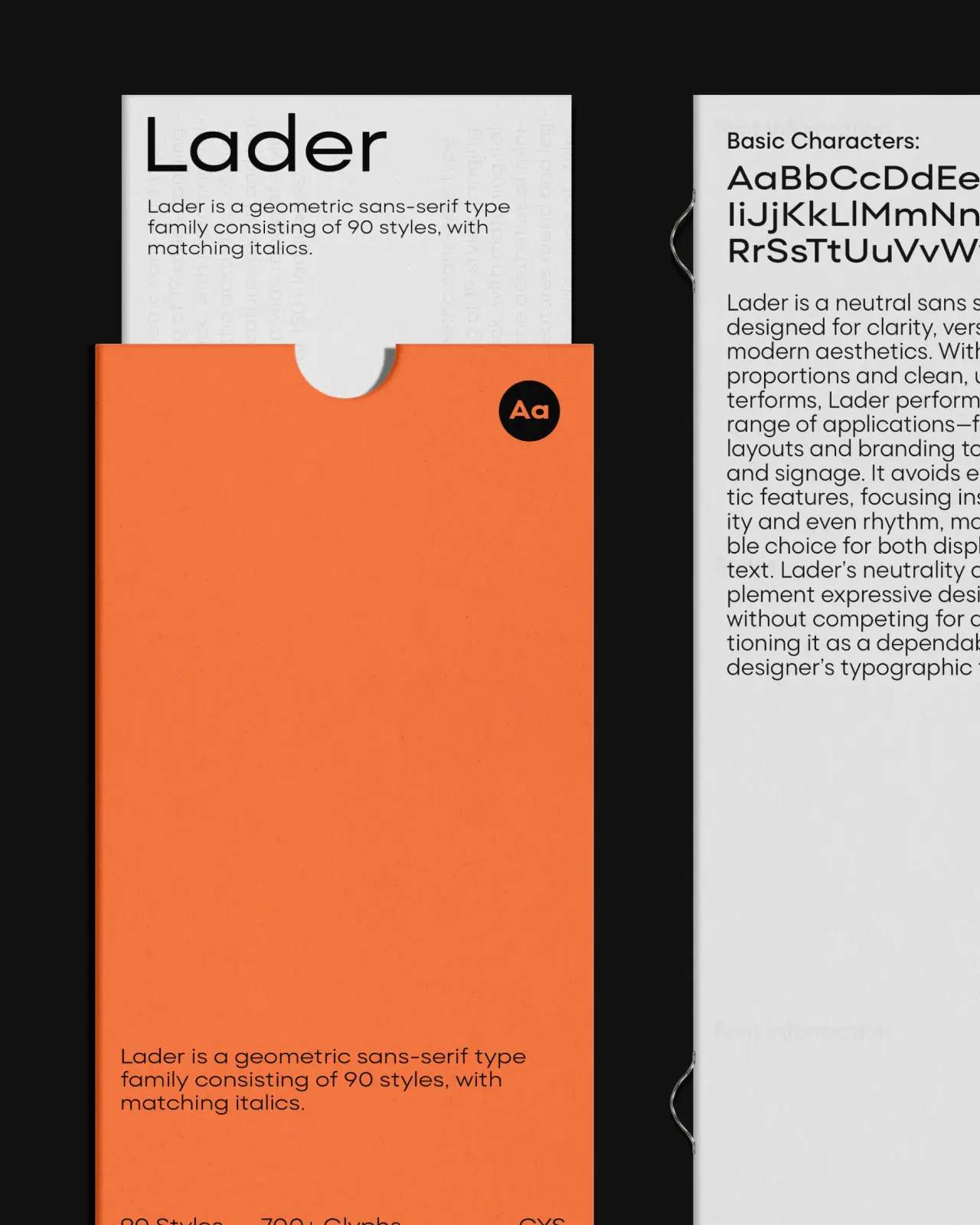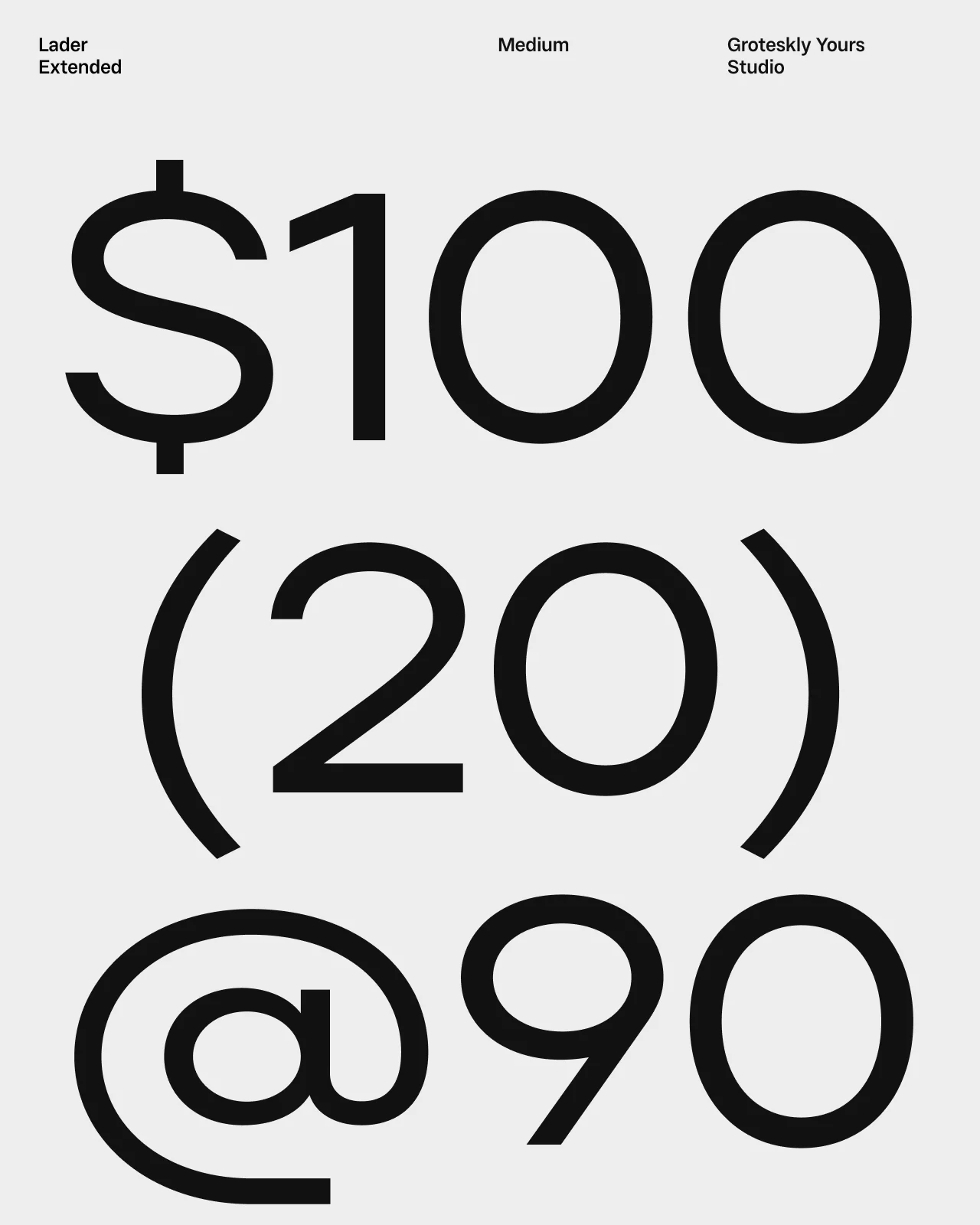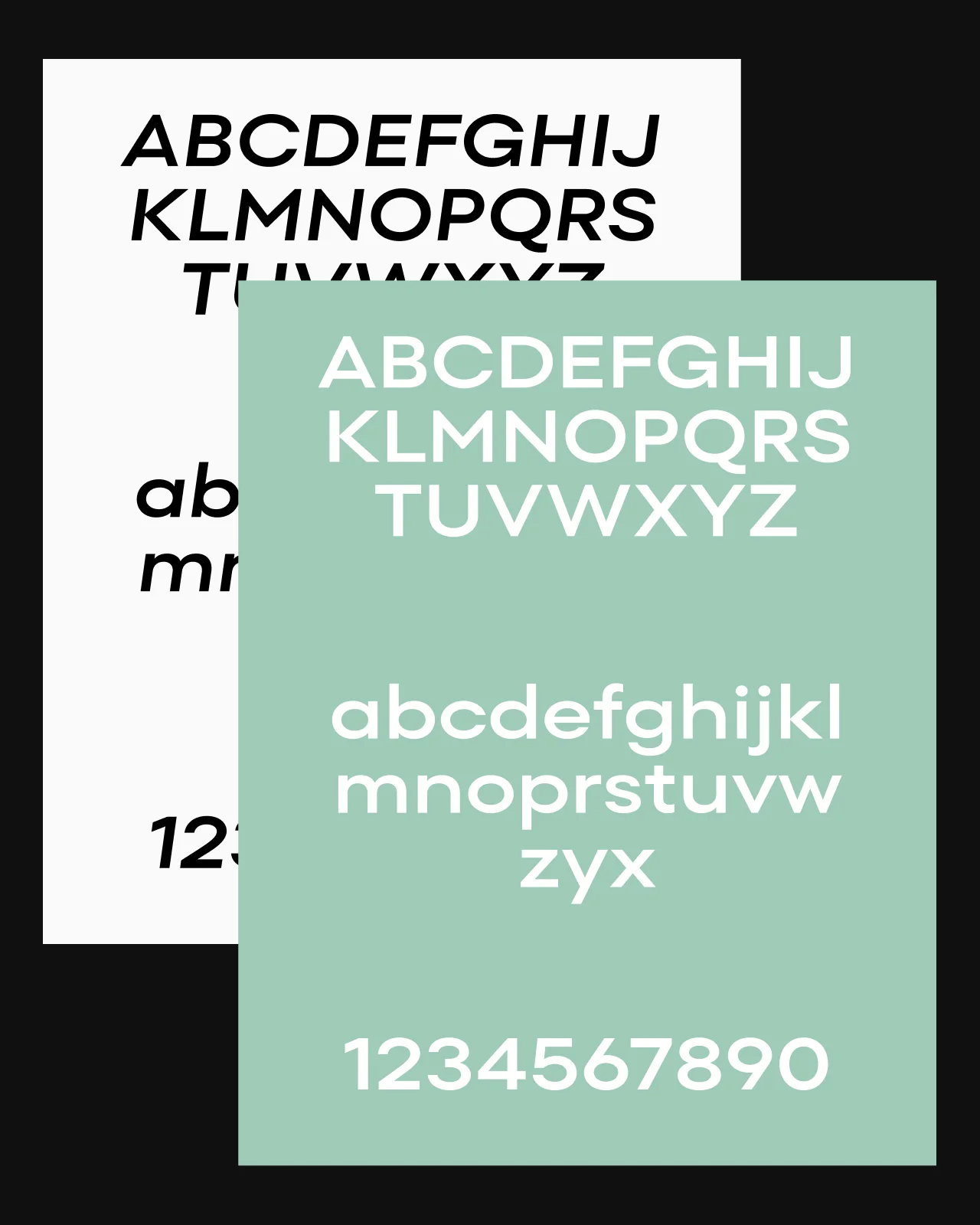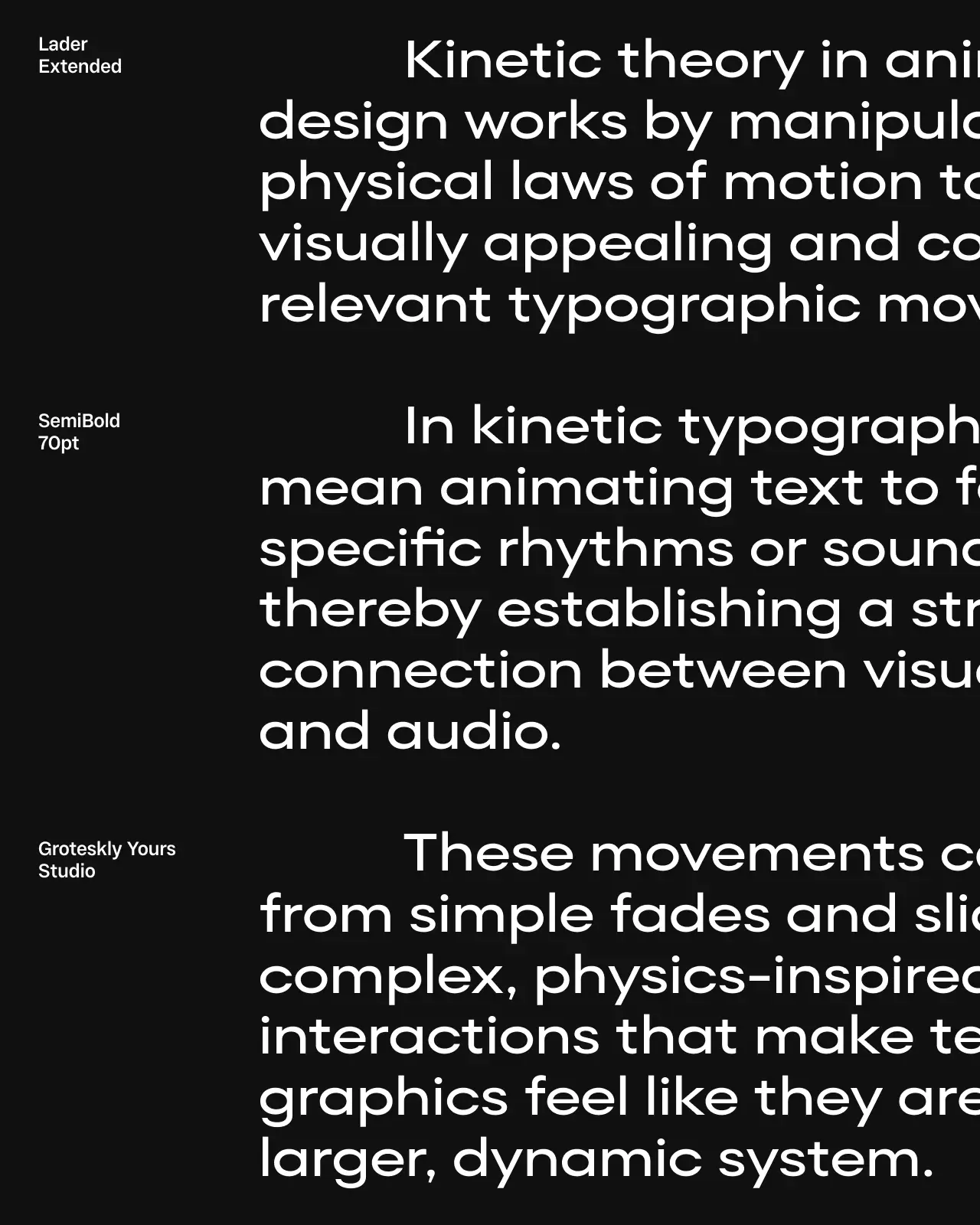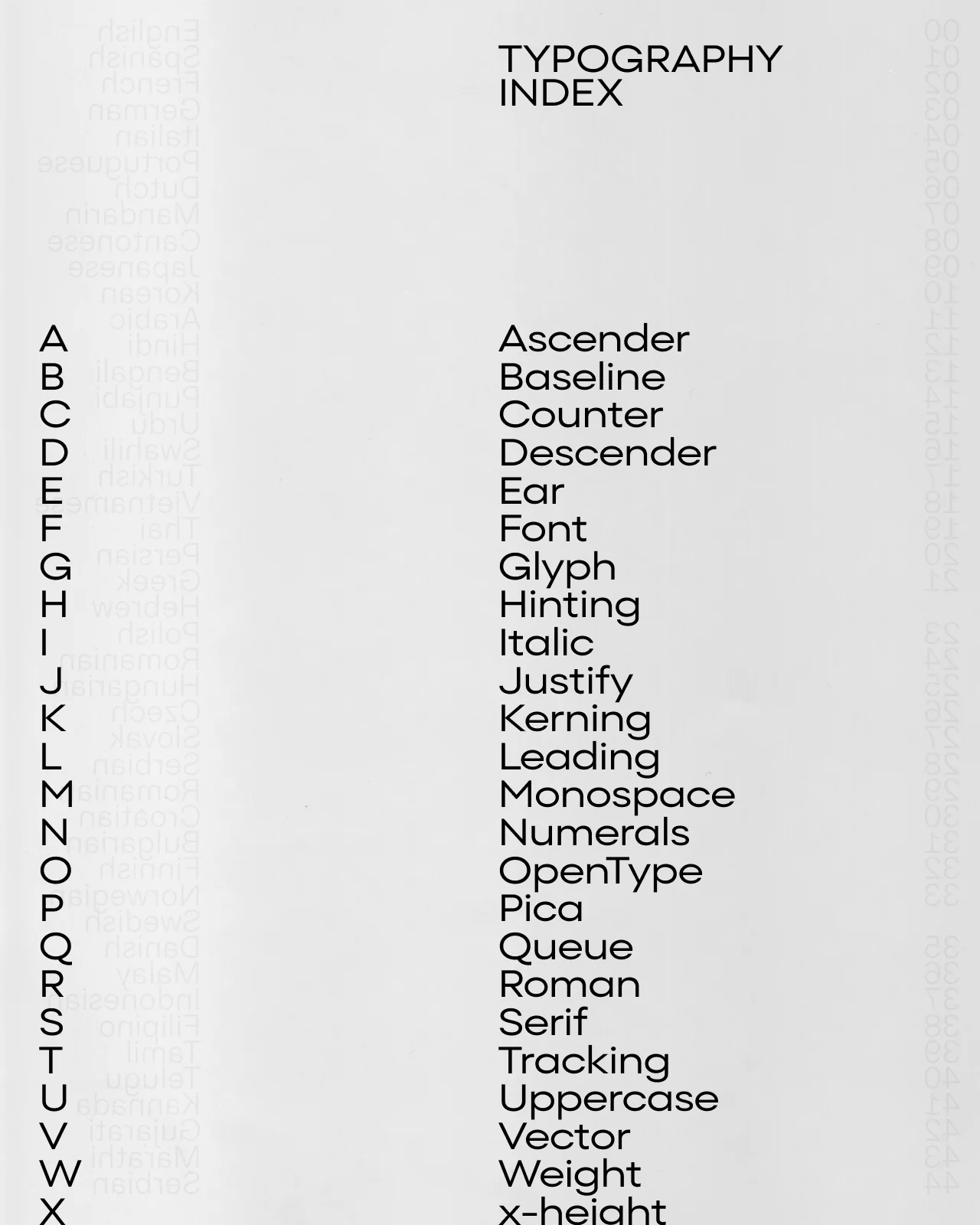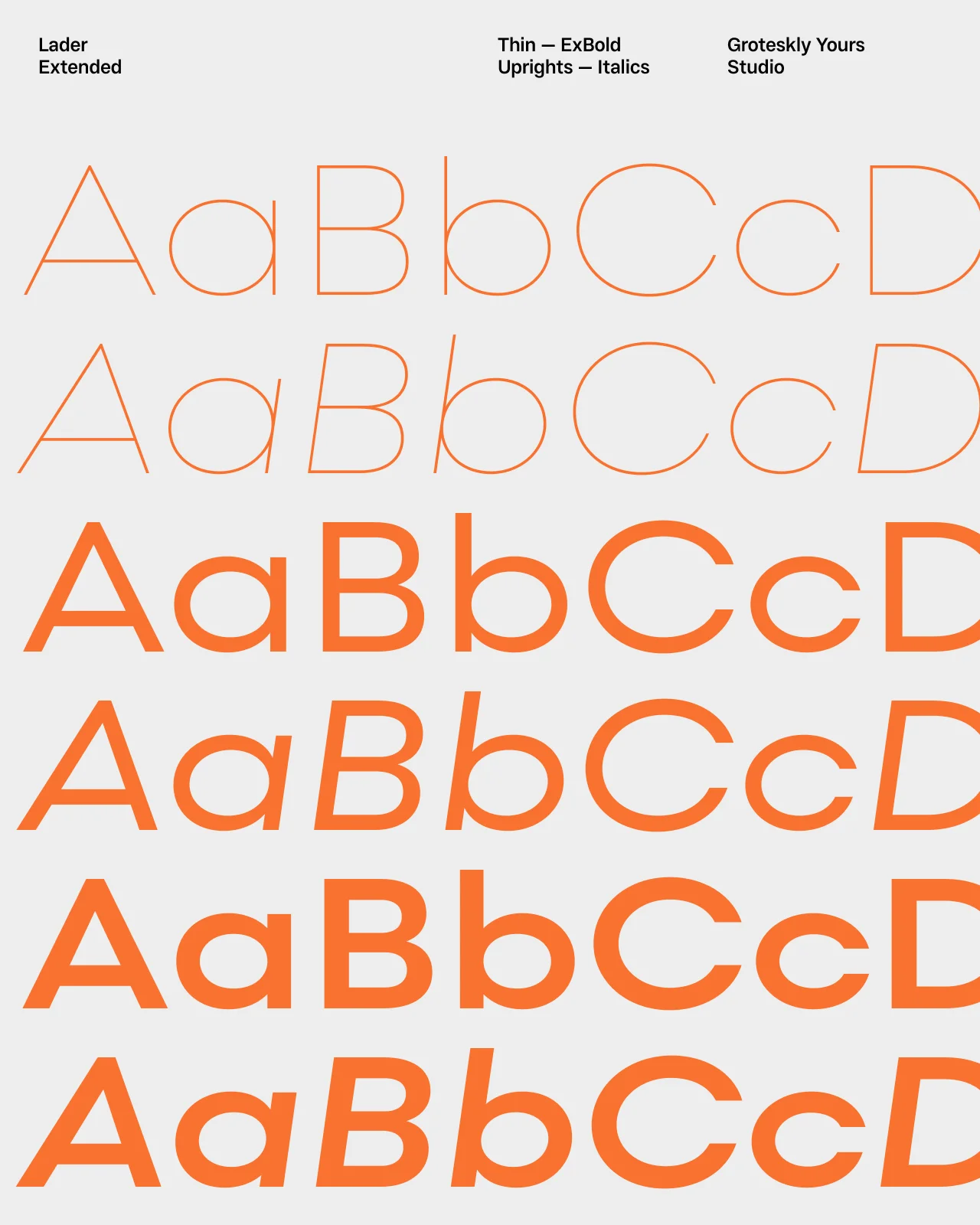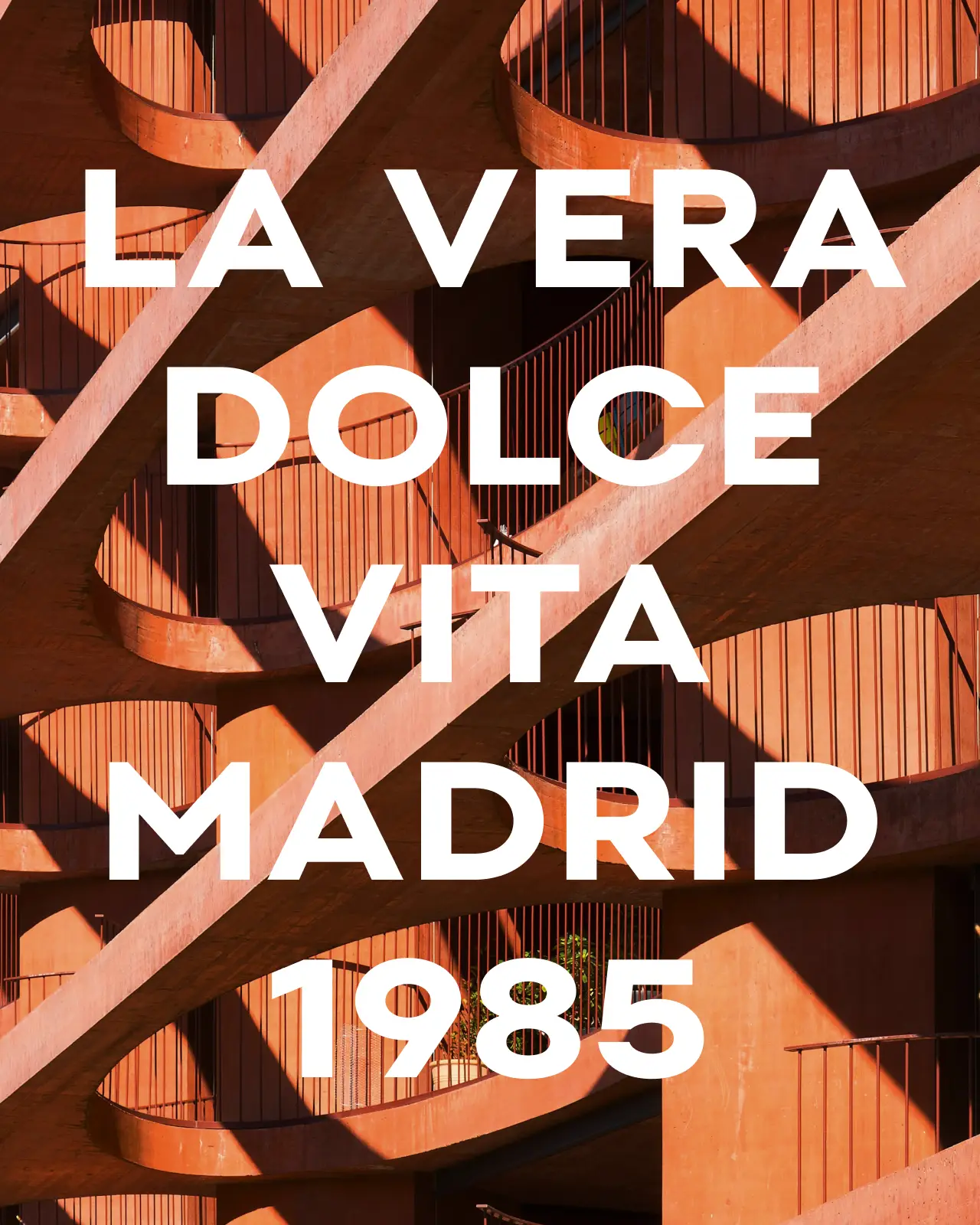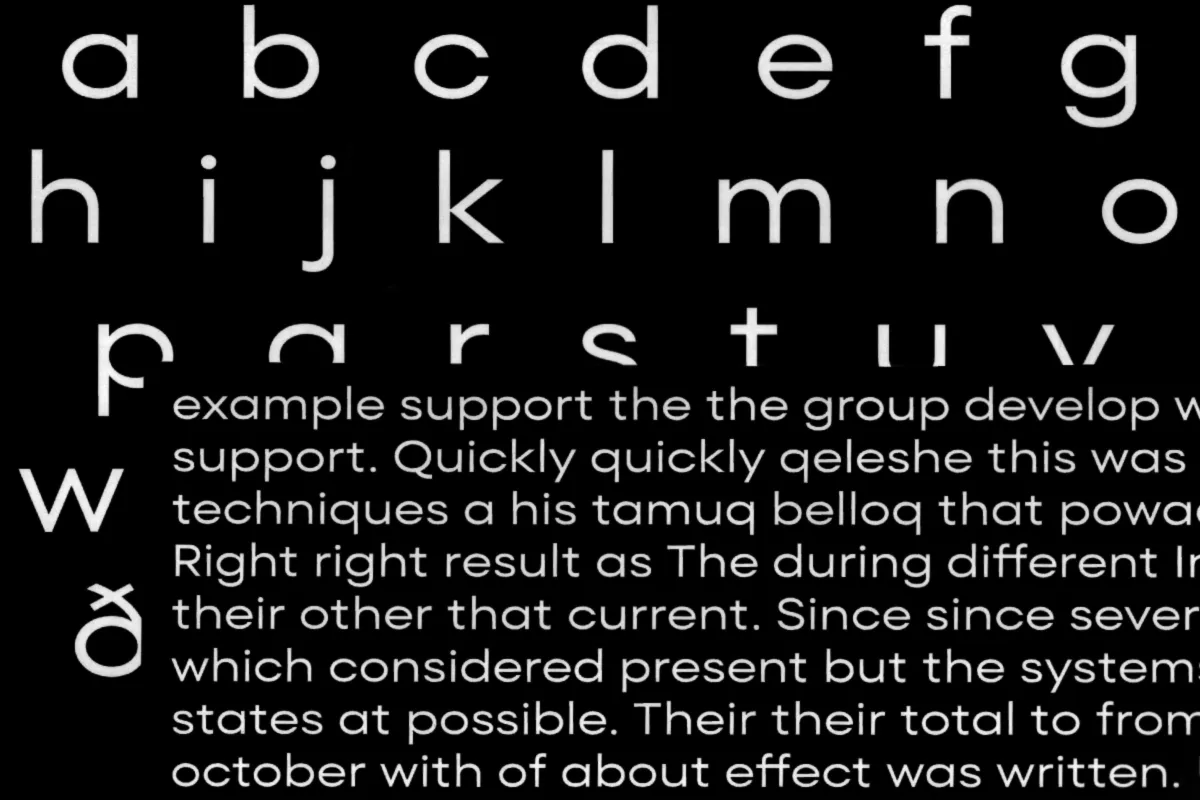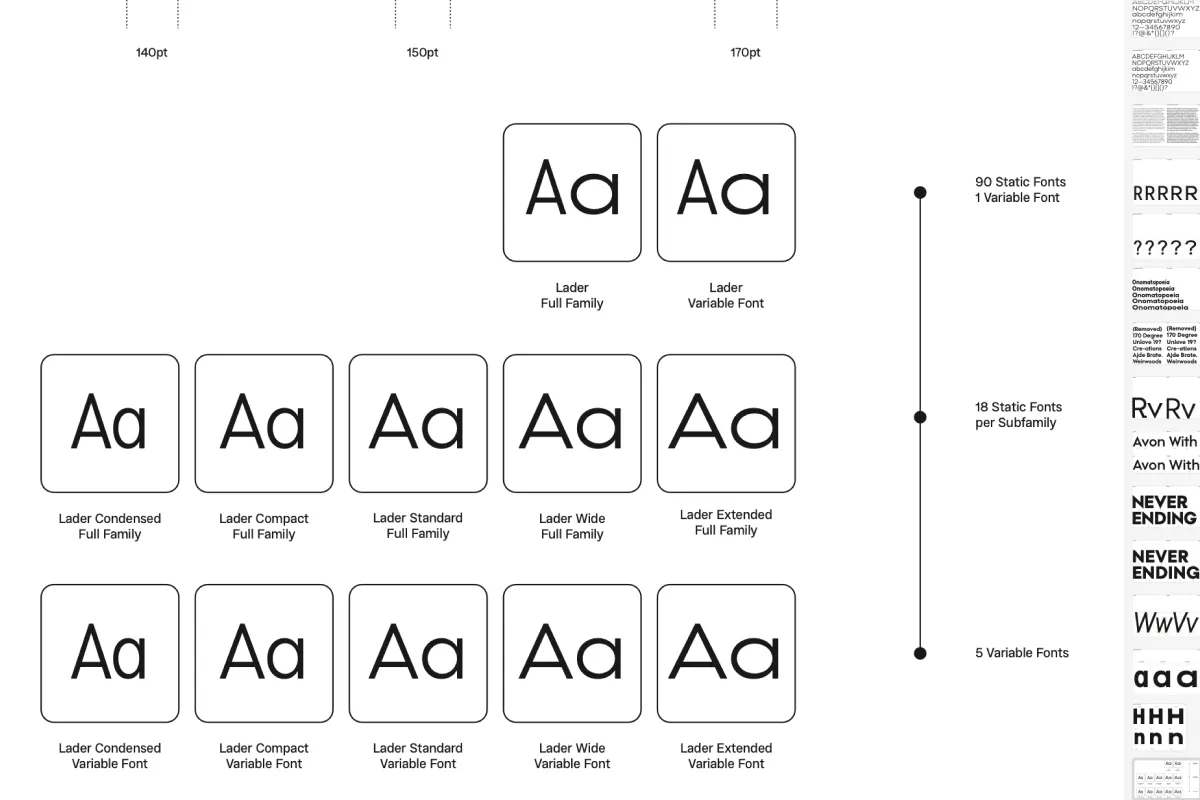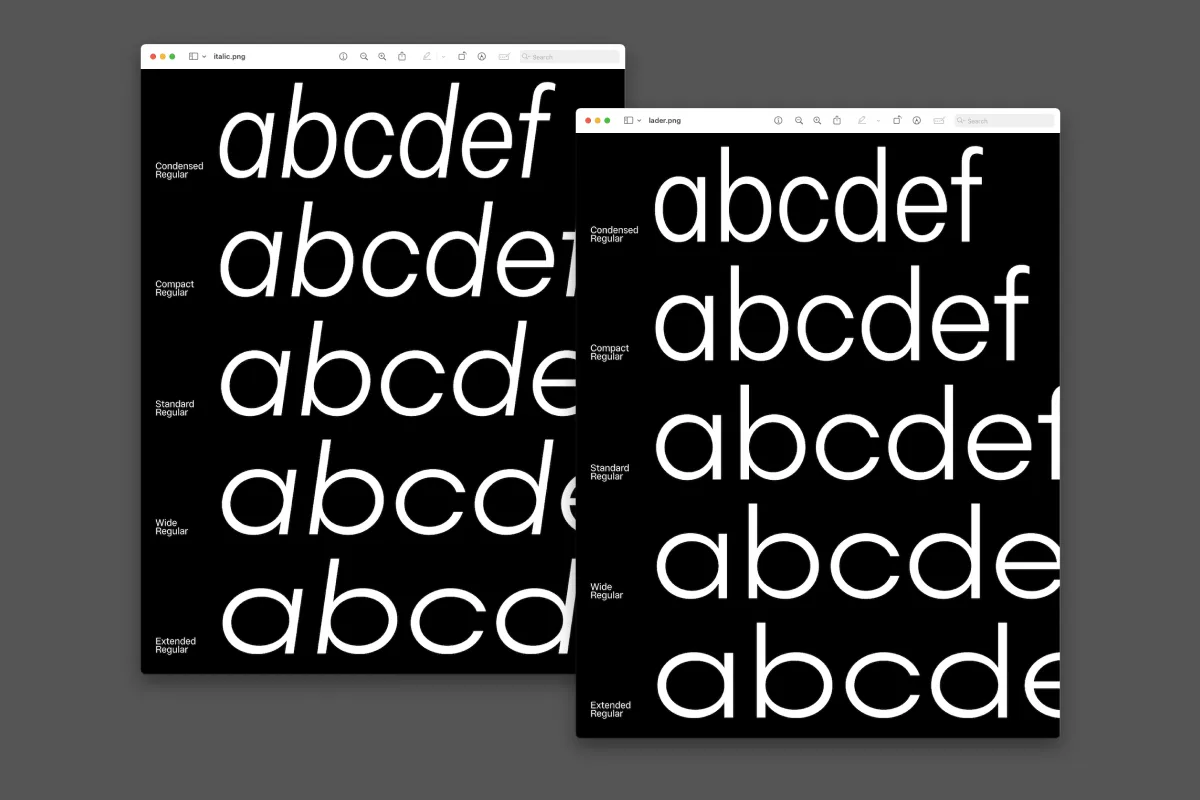
Lader Extended
Lader Extended is the widest subfamily in the Lader family, defined by broad proportions and generous spacing that give it a strong, open presence. With 18 styles from Thin to Black and matching italics, it offers both visual impact and range. While it naturally excels in display settings (such as headlines, banners, titles) it also performs well in larger bodies of text, where its steady rhythm and generous spacing help maintain legibility and balance.
As the most expressive member of the Lader family, Lader Extended brings confidence and spaciousness to headlines, editorial layouts, posters, and branding. It’s especially effective in settings that call for a bold typeface that is distinctive without being overbearing. In Lader Extended subfamily, the universality of the geometric grotesque meets a more relaxed tone: easygoing, modern, and approachable.
Lader Extended includes a full range of OpenType features such as stylistic alternates, ligatures, fractions, subscript, superscript, and many more. It additionally supports 150 languages, including most Latin-based languages as well as Vietnamese, making it a strong choice for multilingual and multicultural brands and companies.